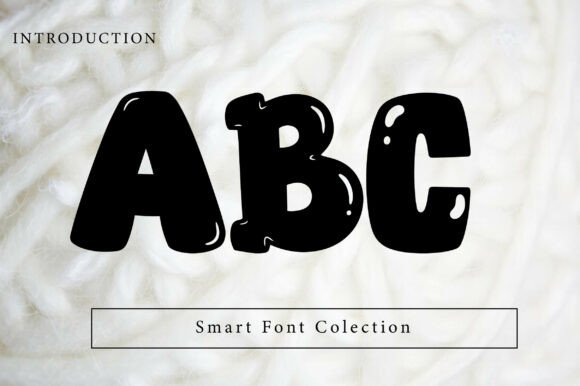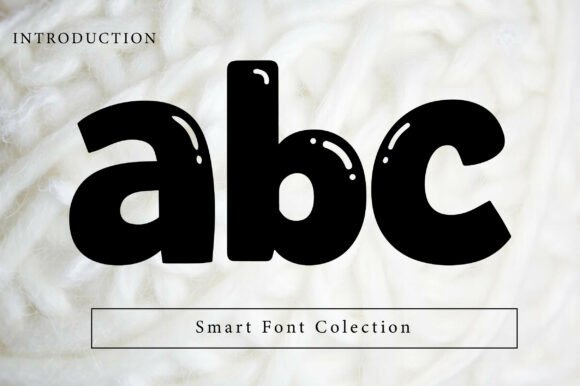
The Joy of Cartoon Bubble Mint Font: A Designer’s Delight
I’ll never forget the time I was working on a project for a children’s brand, and I just couldn’t find the right font. The client wanted something fun, playful, and engaging, but everything I tried seemed either too boring or too over-the-top. That’s when I stumbled upon Cartoon Bubble Mint Font, and it was love at first sight! 💕
This ultra-rounded cartoon display font has been a game-changer for my designs. With its soft, puffy shapes and playful curves, it’s perfect for kid-themed designs, fun branding, snacks and candy packaging, cartoon logos, YouTube thumbnails, stickers, greetings, and any project that needs a cheerful, loveable visual tone.
- ✅ Ultra-rounded and smooth curves that give it a delightful bouncy feel
- ✅ Thick strokes and organic curves create a warm, approachable personality
- ✅ Balances a hand-drawn feel with clean readability
- ✅ Perfect for kid-themed designs, fun branding, and playful products
While Cartoon Bubble Mint Font is an amazing addition to any design project, there are a few things to keep in mind:
- 🤔 May not be suitable for very formal or professional projects, as it has a distinctly playful tone
- 🤔 Some letters may be a bit tricky to read at very small sizes, due to the ultra-rounded curves
- Take advantage of OpenType features like glyphs and stylistic alternates to add more personality to your text
The Story Behind Cartoon Bubble Mint Font
Legend has it that Cartoon Bubble Mint Font was created by a team of designers who wanted to bring a little joy and whimsy into the world of typography. Inspired by the playful curves and soft shapes of childhood favorites, they crafted a font that’s equal parts fun and functional.